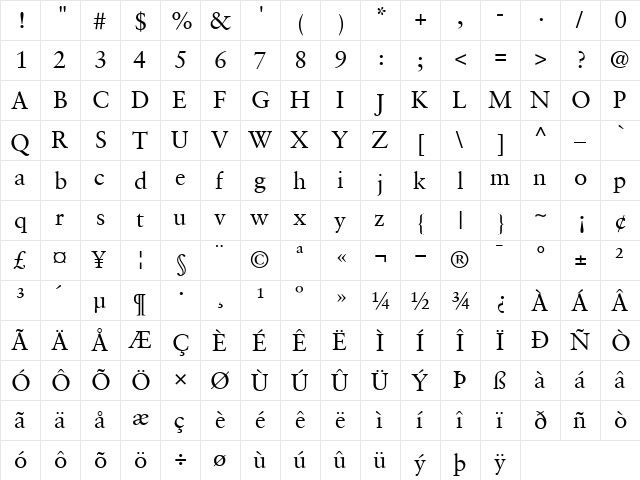
12Sabon*Roman05232 Roman
Design Context for 12Sabon*Roman05232 Typeface
12Sabon*Roman05232 takes a measured approach to typography — its balanced proportions and neutral character make it a reliable workhorse for both digital and print work.